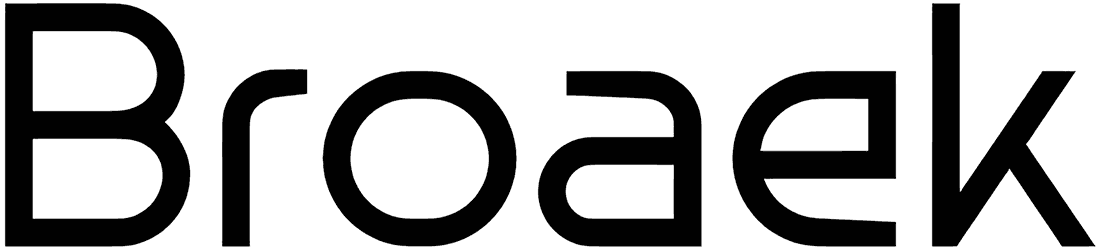
Broaek Font
A modern font like the one present offers is able to throw a distinct vibe into your text, but keep it humble at the same time. This sans serif font with its specific style supports almost all characters in three versions. Set the Broaek font on your next layouts, such as a fashion event flyer, and see how amazing the final draft will be.